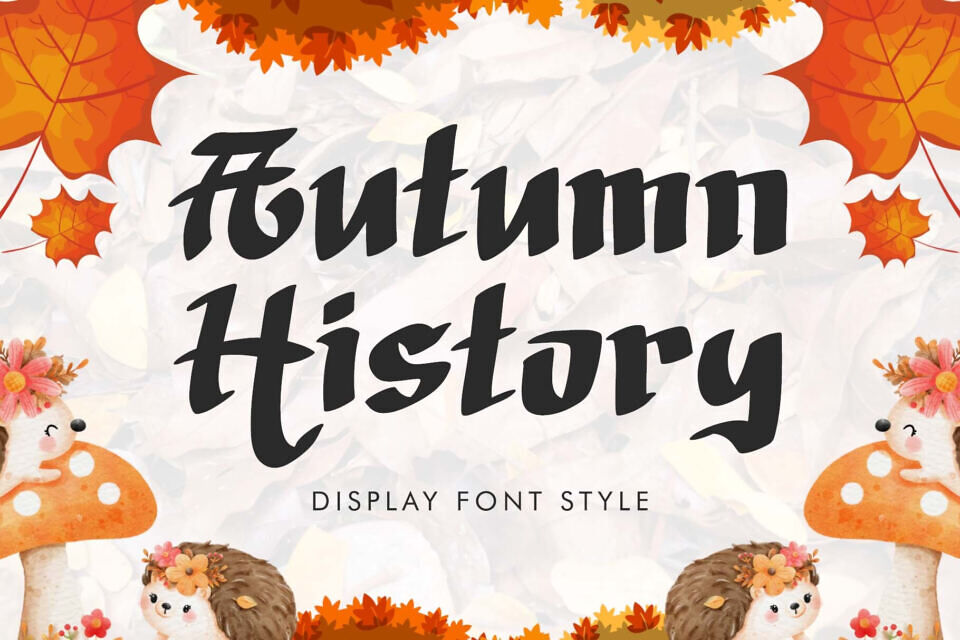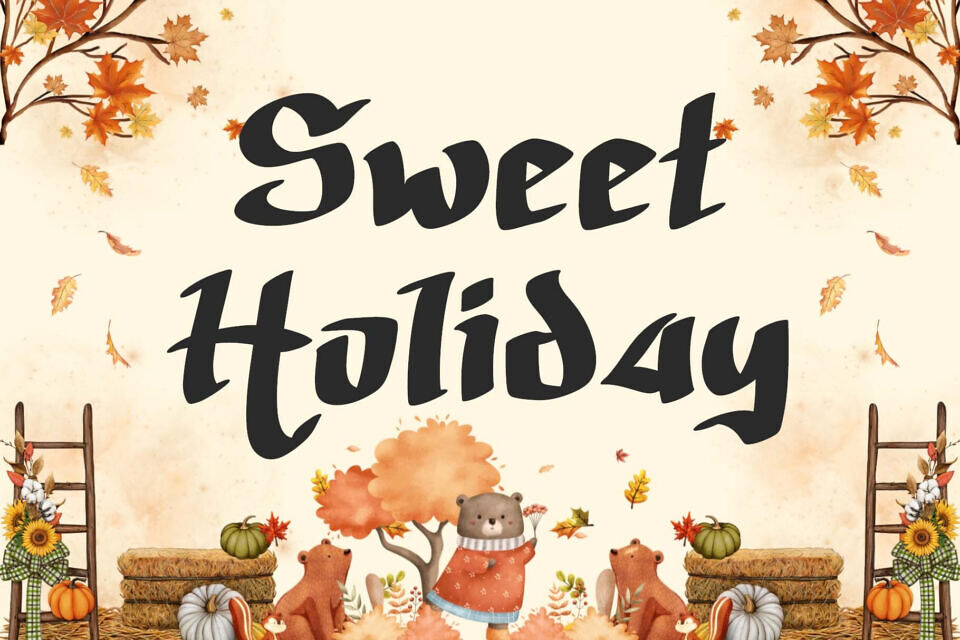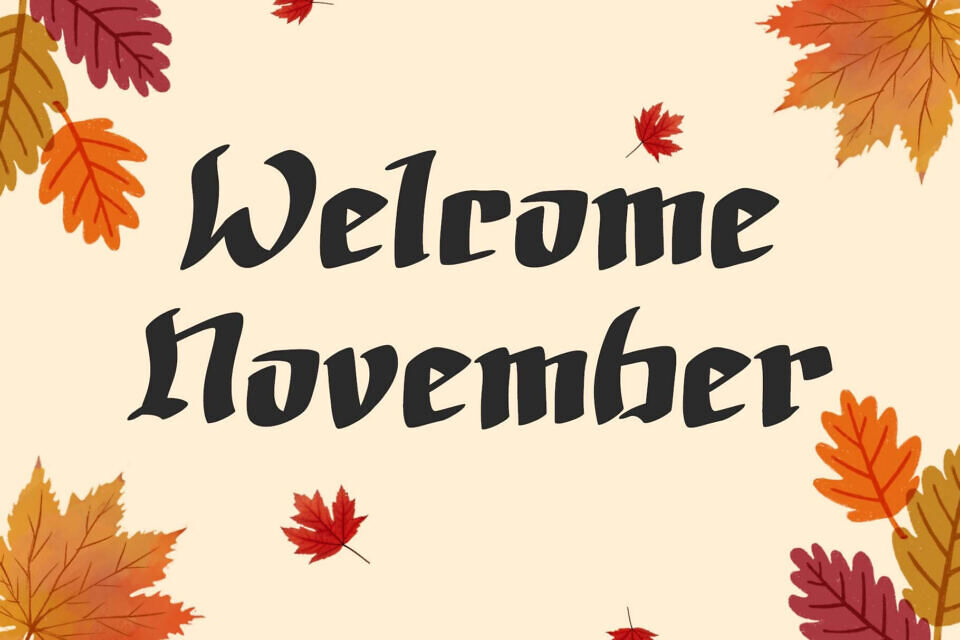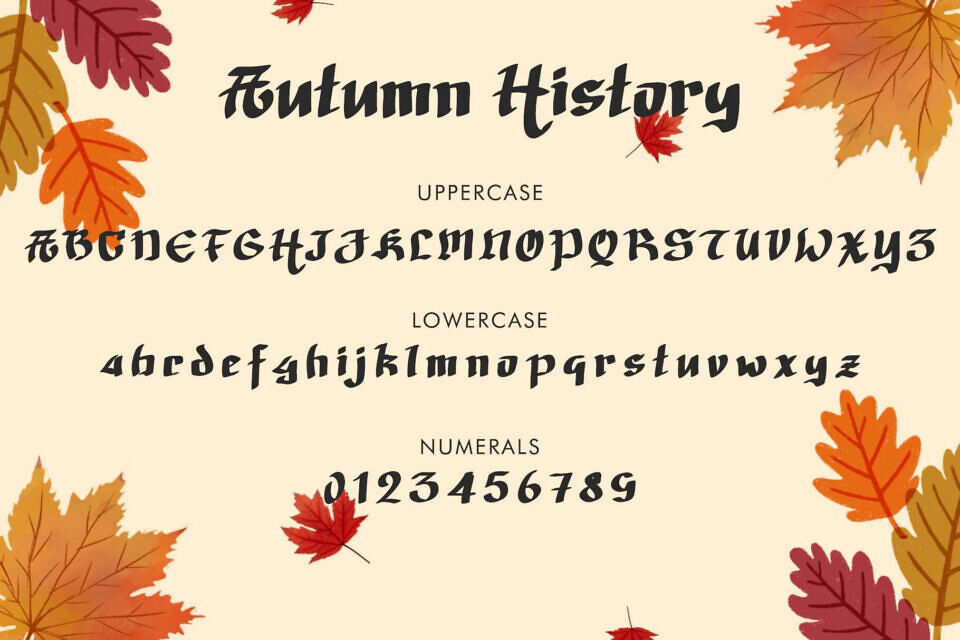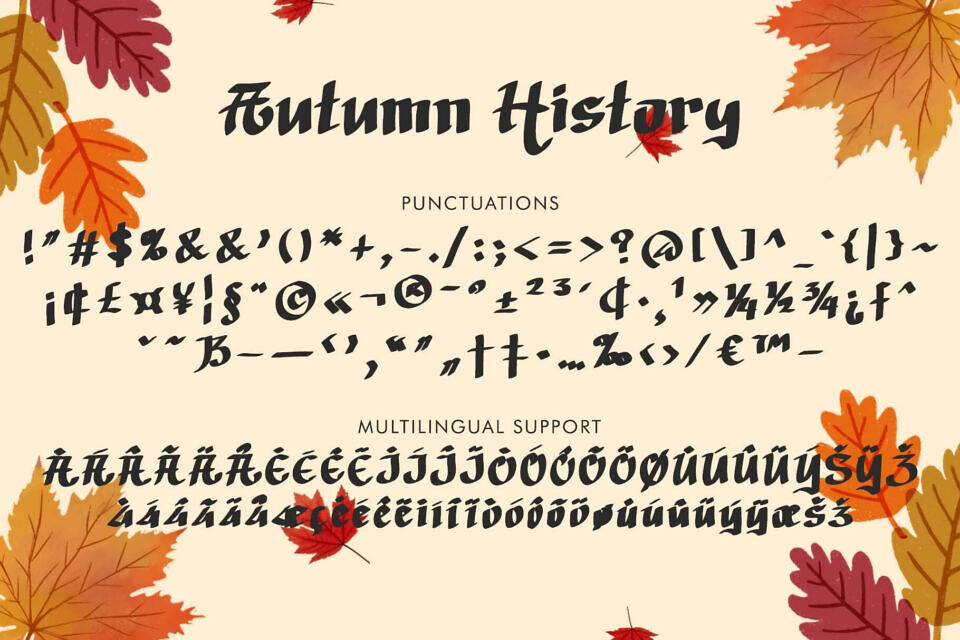
Autumn History is a bold and nostalgic display font that blends vintage flair with seasonal charm. Featuring sharp strokes and a medieval-inspired letter style, this font is perfect for fall-themed projects that need a touch of historic elegance.
From cozy invitations and Thanksgiving menus to rustic signage, seasonal quotes, and storybook-inspired crafts, Autumn History delivers character and warmth with every letter. With full uppercase, lowercase, and numerals, it’s versatile enough for both classic and playful fall aesthetics.